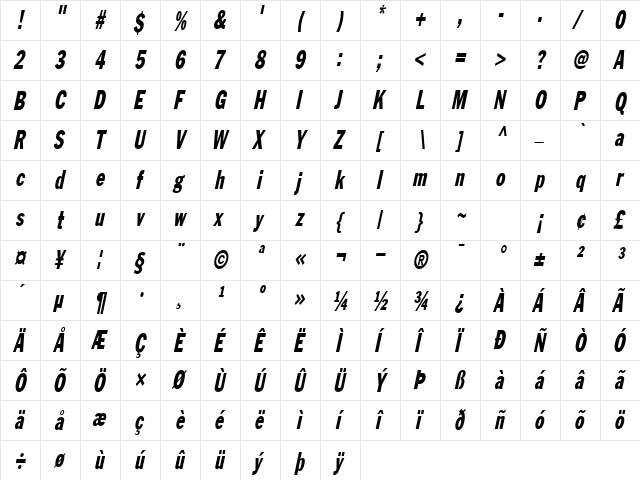
LibraryGothicHeavyCondensed Italic Font Preview
Design Context for LibraryGothicHeavyCondensed Typeface
LibraryGothicHeavyCondensed has the quiet confidence of well-executed sans-serif typography: versatile, unobtrusive, and dependable at any size. The dynamic lean of this cut emphasises speed and emphasis in any layout. Its narrow stance lets it pack a punch even in space-constrained designs.
Font Pairing: Works well alongside a characterful serif or display font that can carry the expressive load while LibraryGothicHeavyCondensed handles the functional copy.
Pro Tip: Use LibraryGothicHeavyCondensed tightly set in headlines and banners — its condensed proportions make it ideal for maximum impact in minimum horizontal space.